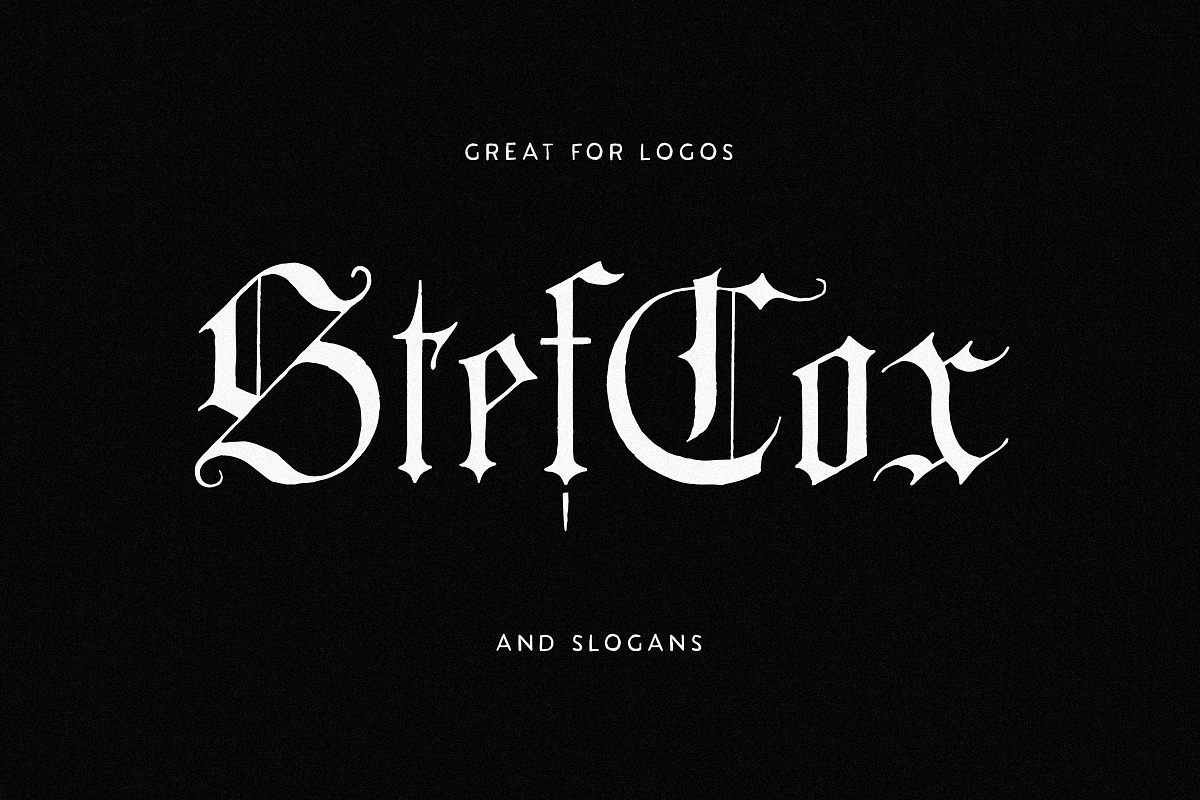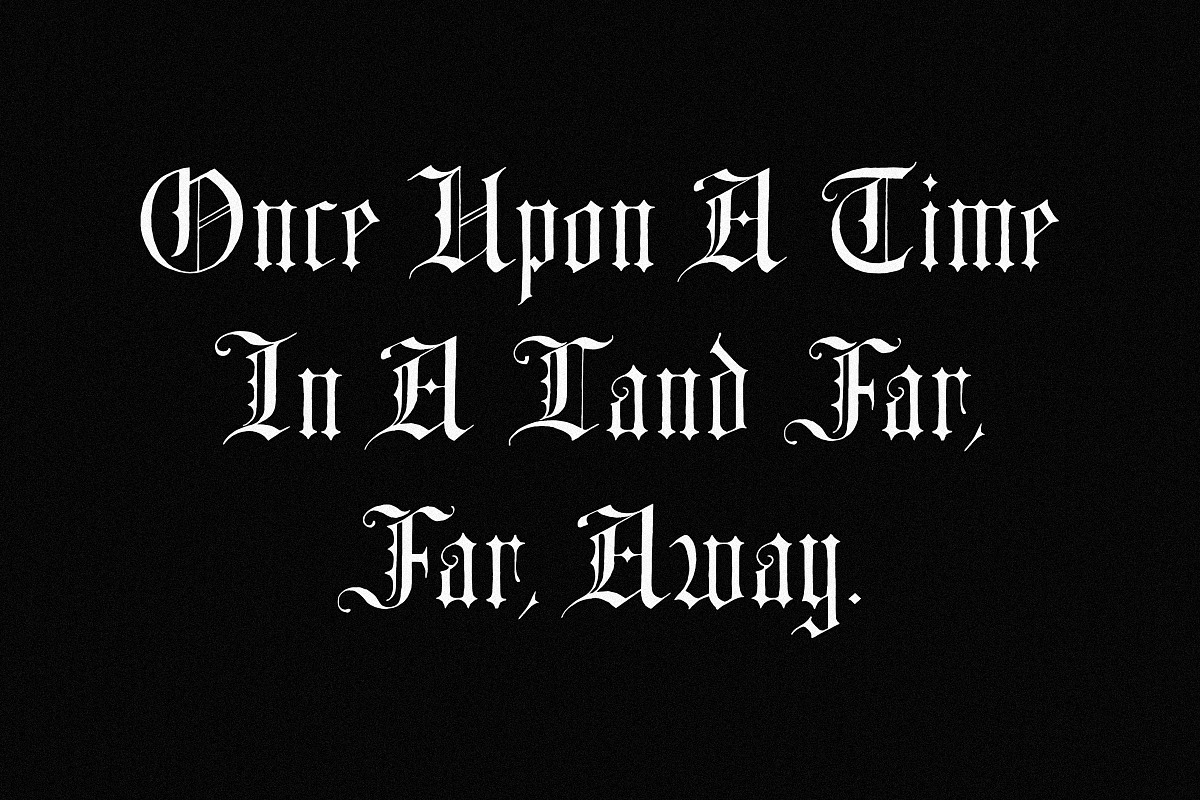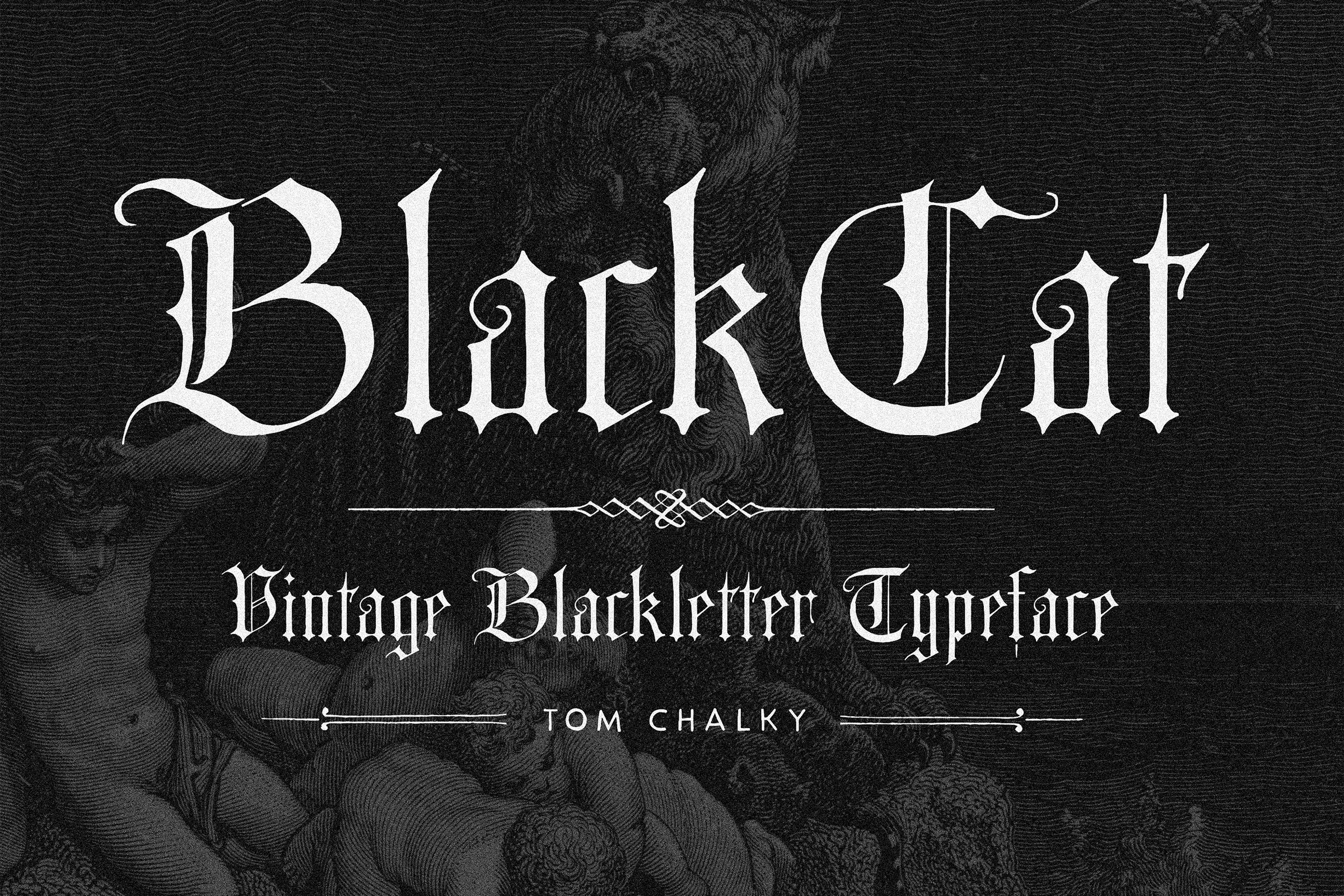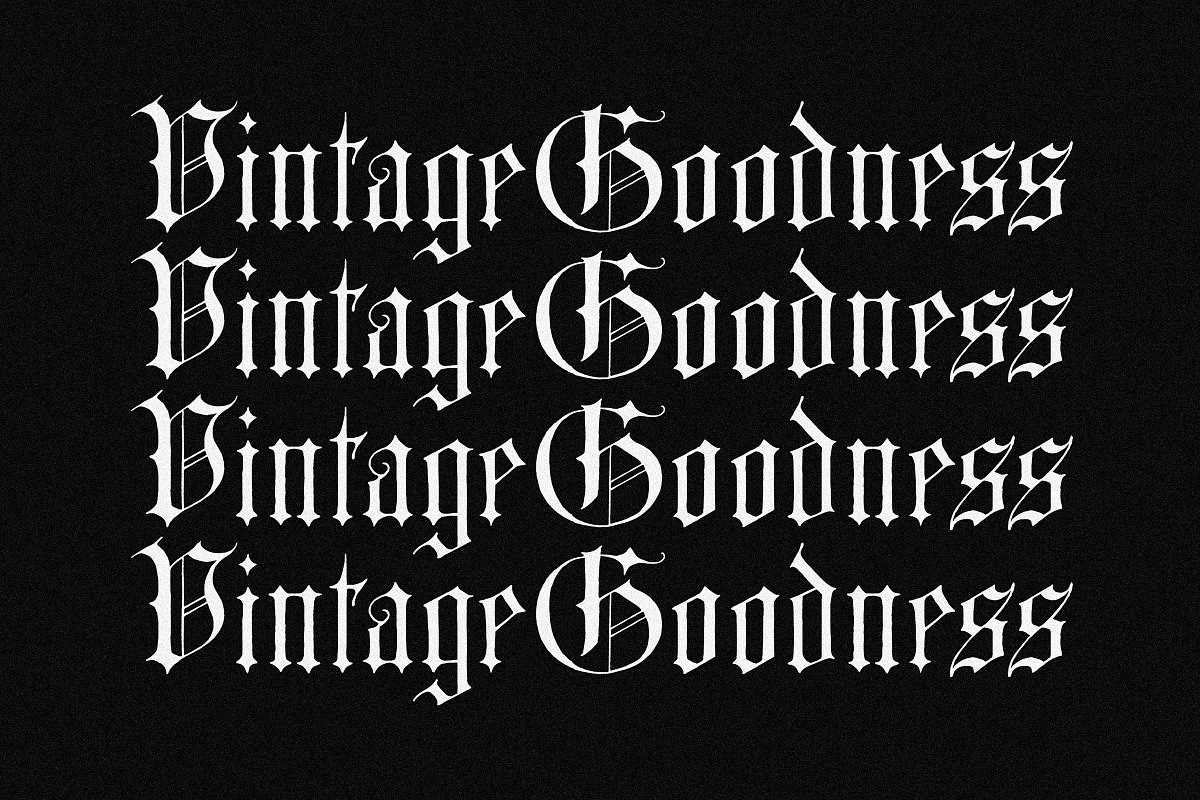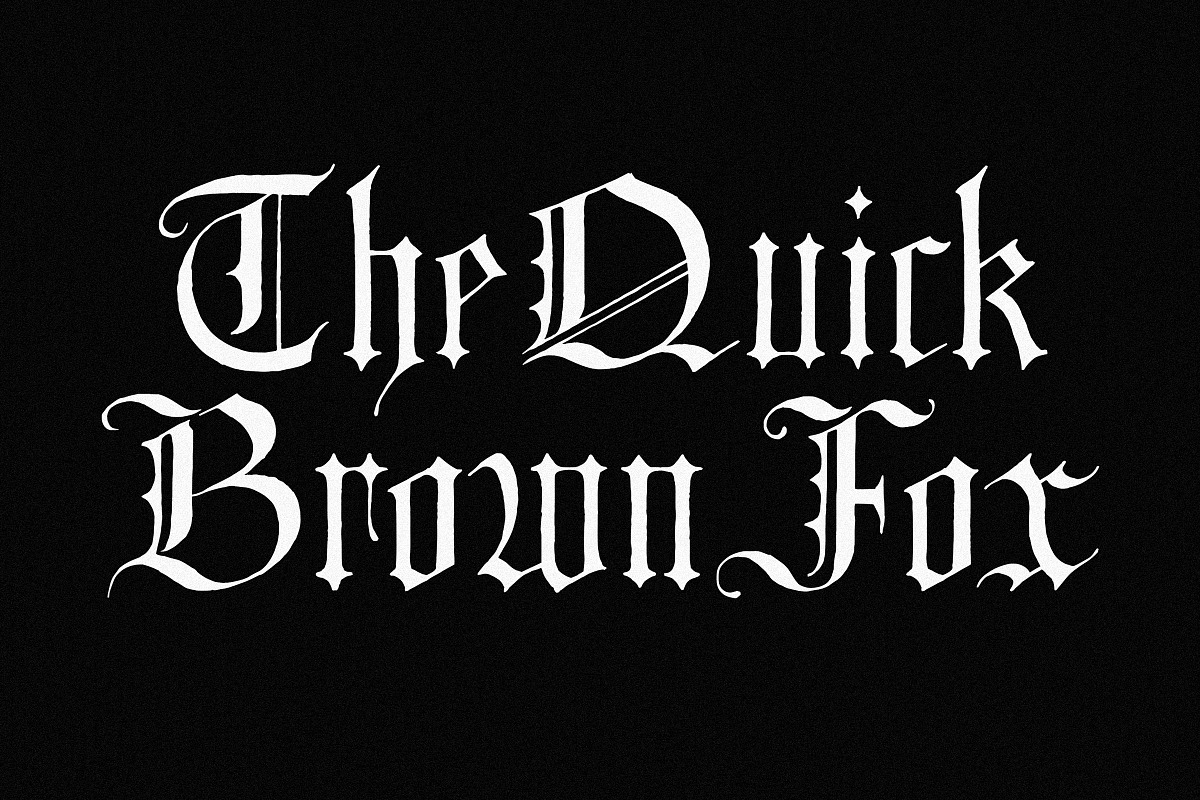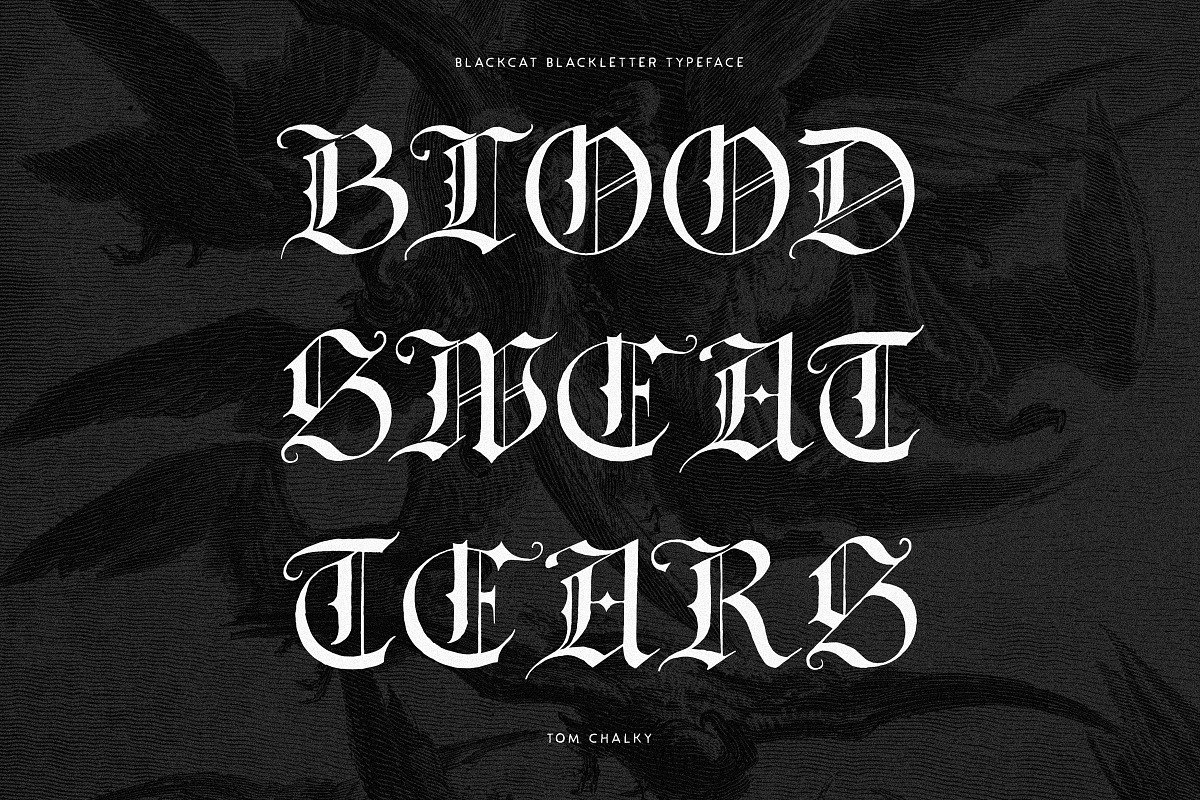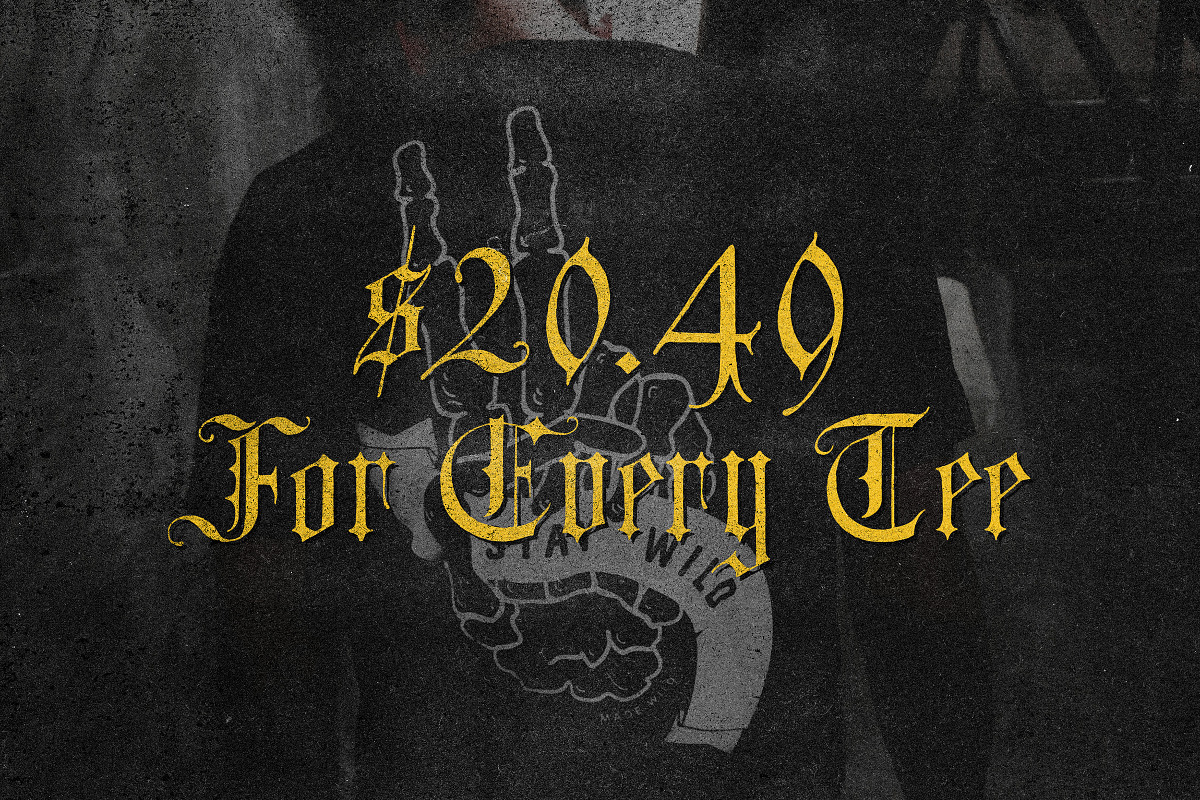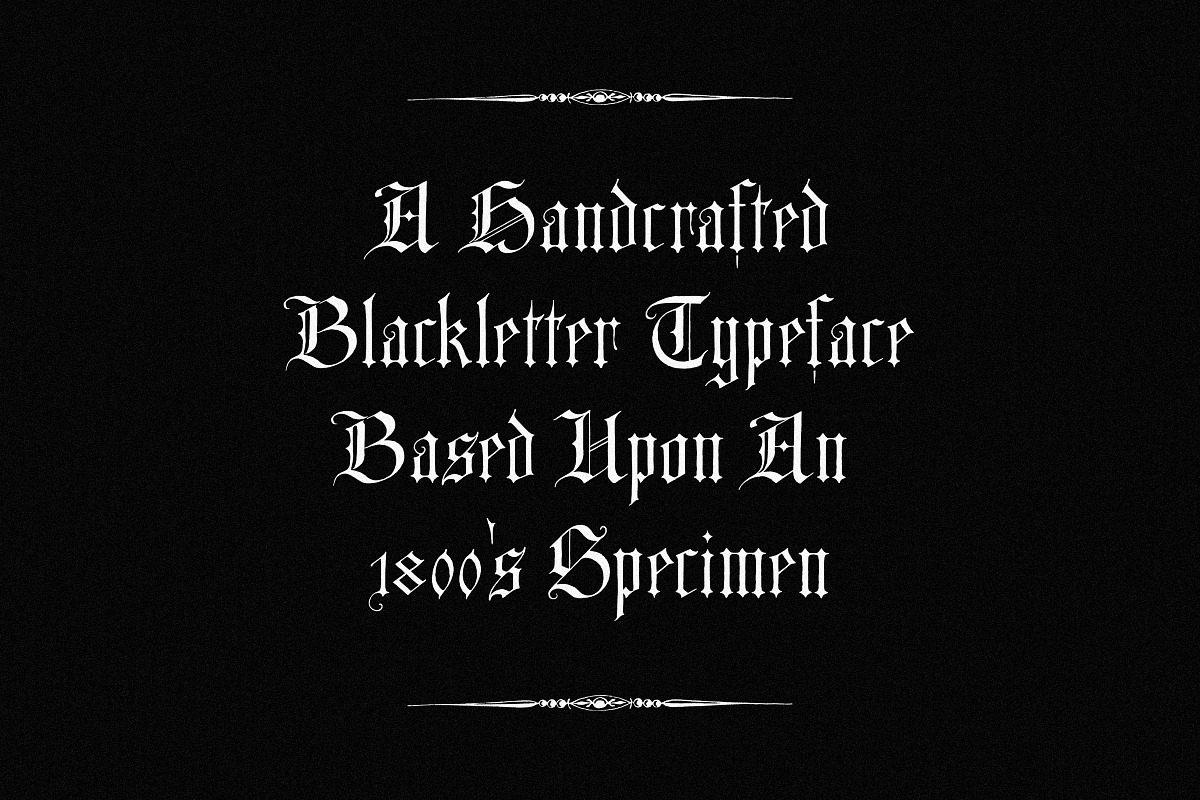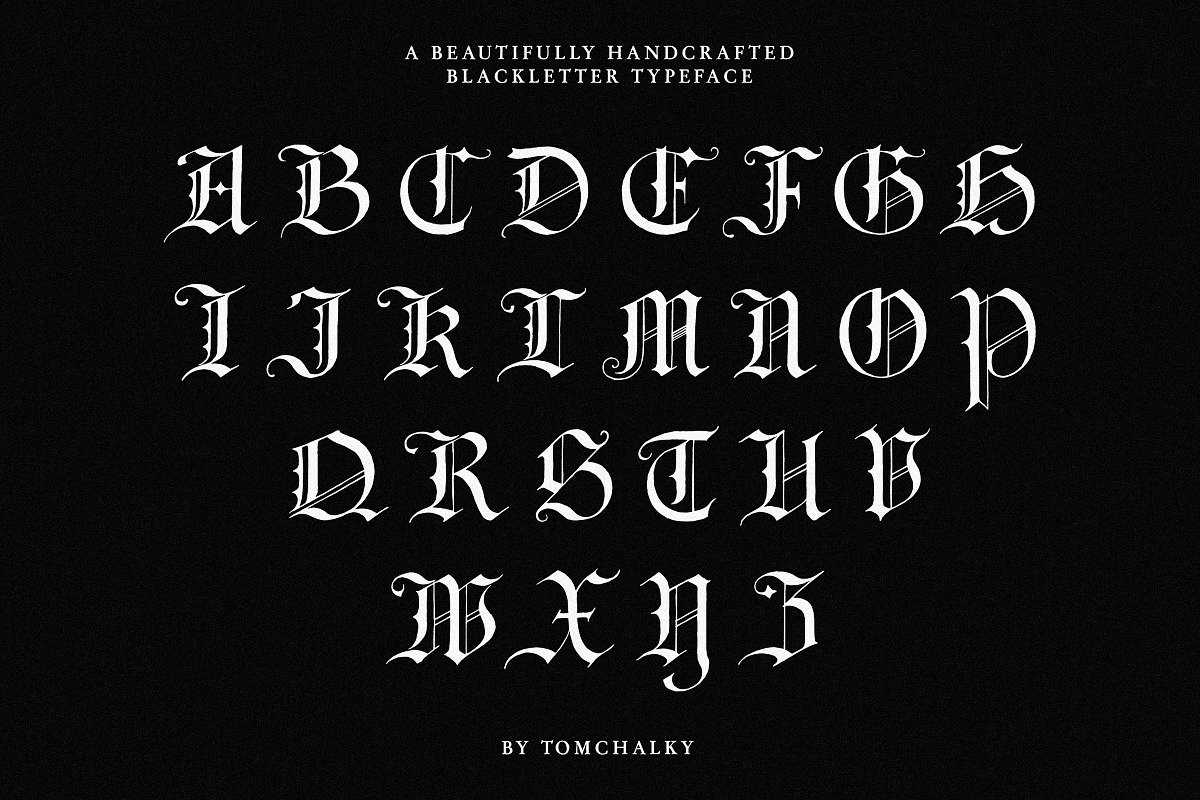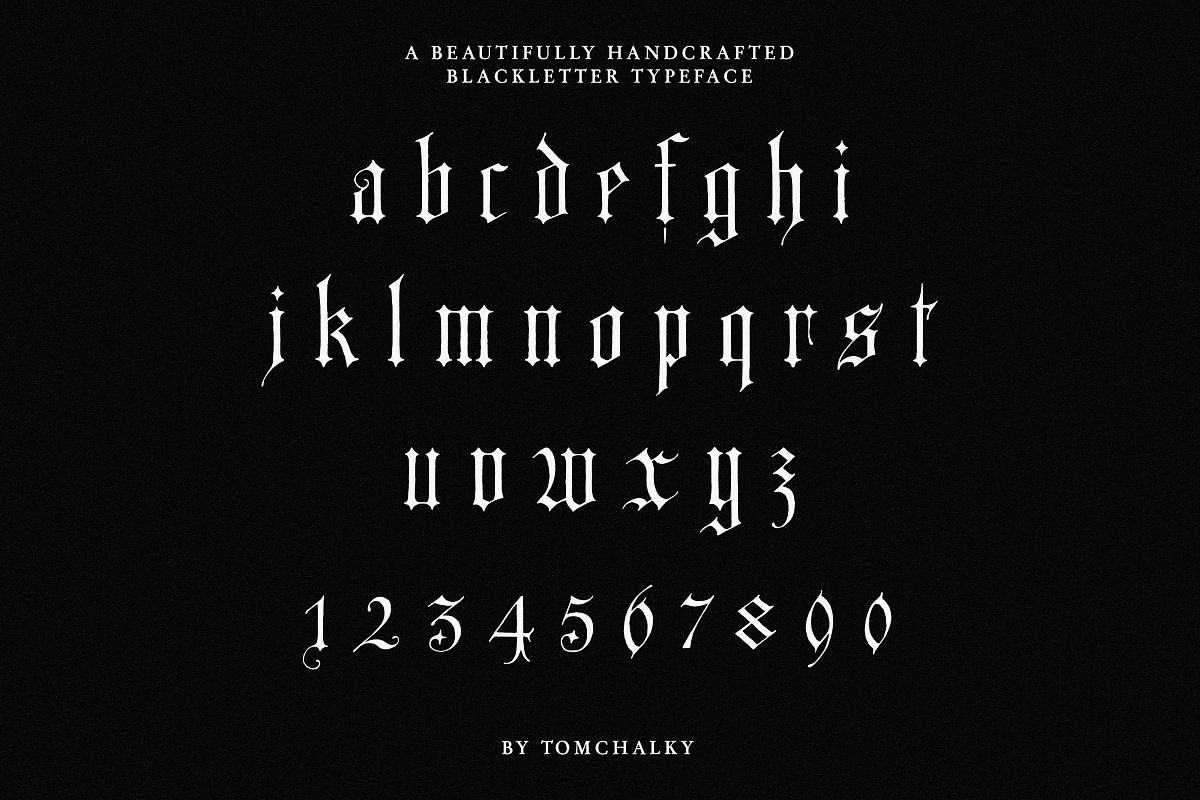
BlackCat Blackletter Vintage Font
Proudly Introducing BlackCat, an authentically Vintage Blackletter Font. Its design is based on a specimen from the 1800s that oozed that classic Blackletter style that is (I'm glad to see) making a glorious comeback!
- Great for Display (Fonts, Headlines, Apparel - Big text stuff)
This project was a true joy to work on. As some of you may know, the other half of my design business is one that I run alongside my wife (Abbie) and includes collecting, restoring, and repurposing vintage illustrations.
After getting my hands on some wonderful vintage typography specimens, I couldn't pass up the opportunity to make them into working typefaces. While the original prints contained very few glyphs and required plenty of custom work, I've tried to stay as true to the design as possible while creating the additional letters, numbers, and symbols.